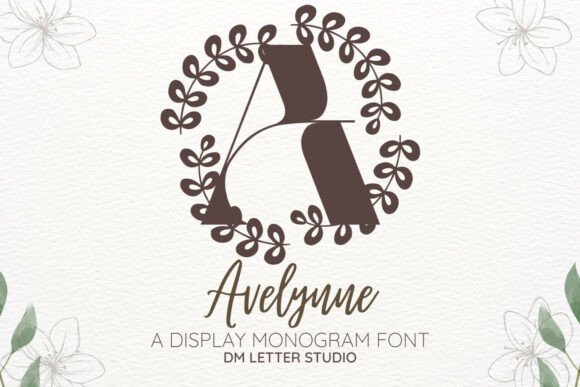
Monogram Magic: Elevate Your Designs with Avelynne Monogram Font
Have you ever stumbled upon a beautiful monogrammed invitation or bespoke stationery that made you stop and admire its elegance? The intricate curves and perfect balance of the design elements can be truly captivating. For designers looking to add a touch of sophistication to their projects, Avelynne Monogram Font is the perfect tool to achieve this look.
This versatile font turns simple initials into stunning marks that are sure to leave a lasting impression. Whether you’re creating wedding suites, boutique branding, or premium packaging, Avelynne Monogram Font is the ideal choice. Its smooth curves and clean spacing make it a breeze to work with, and its pairing capabilities with other fonts ensure that your designs look refined and polished.
Avelynne Monogram Font Key Features
- Font Style: Script, Monogram, Elegant
- Unique Characteristics: Customizable, Hand-Drawn, Distressed and Vintage effects available
Avelynne Monogram Font Review
I recently had the chance to work with the Avelynne Monogram Font, and I must say it’s a unique and stylish addition to any design project. ✨ The font’s bold, modern design makes it perfect for creating eye-catching logos, social media graphics, and other visual content. The monogram style adds a touch of sophistication and elegance, making it ideal for high-end brands and businesses.
Here are some of the things that work well with the Avelynne Monogram Font:
- ✨ Unique and modern design
- ✨ Perfect for creating bold and eye-catching logos
- ✨ Great for high-end brands and businesses
- ✨ Easy to customize and manipulate
- ⚠️ Limited character set (may not be suitable for longer texts)
- ⚠️ Not suitable for smaller font sizes (may be difficult to read)
Overall, I’m impressed with the Avelynne Monogram Font, but it’s essential to weigh its limitations against its benefits. If you’re looking for a unique and stylish font for your next design project, Avelynne Monogram is definitely worth considering. However, be sure to check the licensing options and character set before making a final decision.
Tips for Getting the Most Out of the Avelynne Monogram Font
Use the Avelynne Monogram Font for creating elegant and sophisticated designs, such as wedding invitations, business cards, and branding materials.
Experiment with different font sizes and styles to achieve a unique look.
Combine the Avelynne Monogram Font with other elegant fonts for a cohesive design.
The Avelynne Monogram Font is ideal for:
Business cards and branding materials
Personalized gifts and stationery